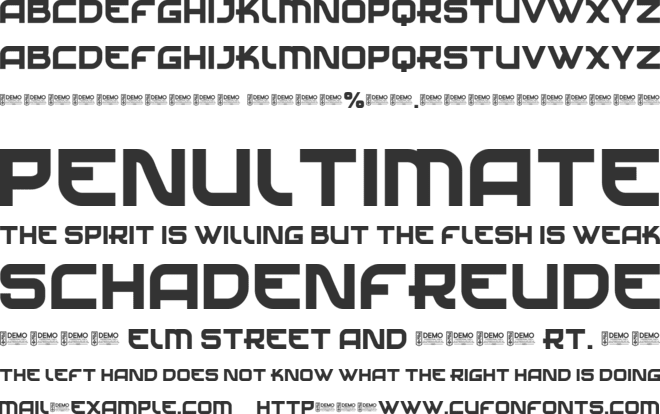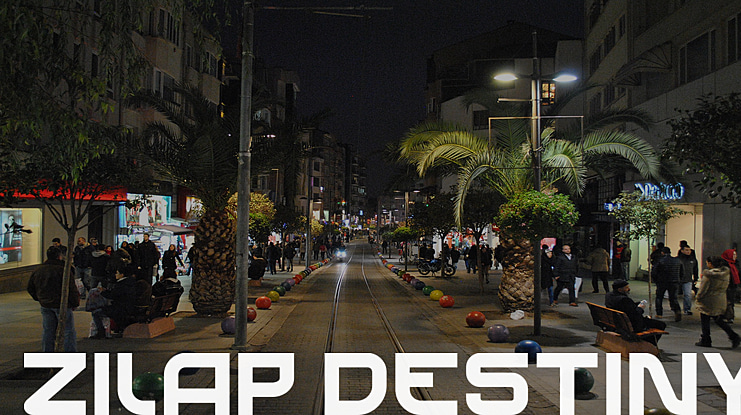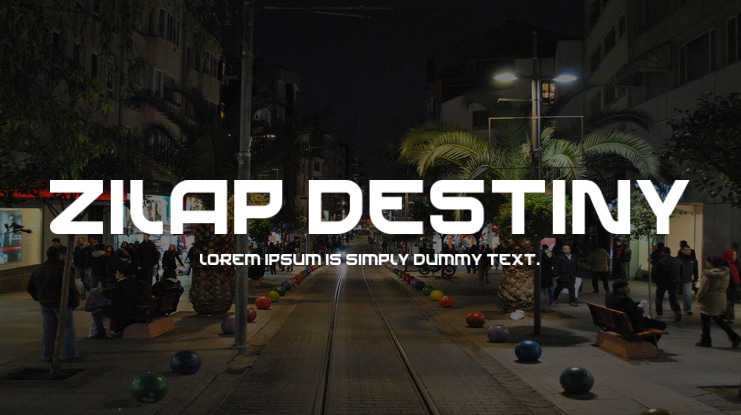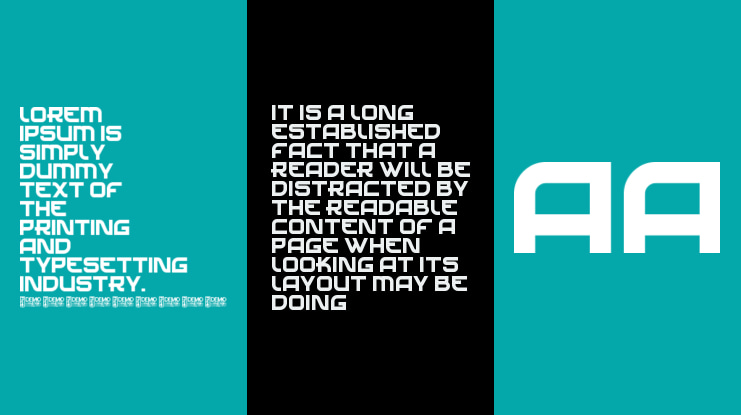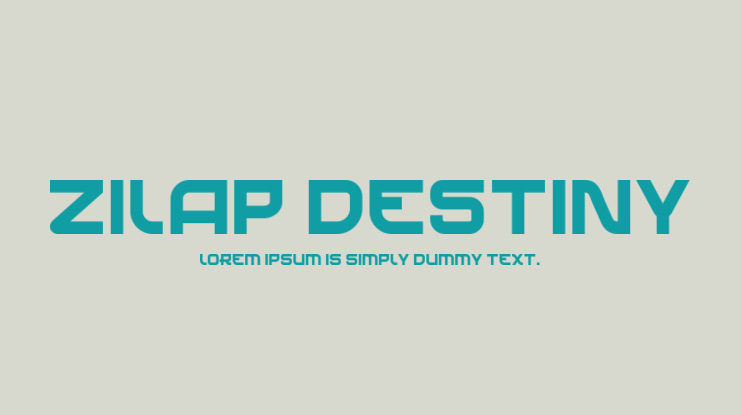
Zilap Destiny Font Family
Luis Jaramillo
• ZILAP DESTINY / Personal Use / It's a typographic project full of personality, perfect for Futuristic and modern uses.
It is a versatile typeface that adapts to the needs. Graphics of each job.
Inspired and designed by Zilap Studio
Assembly and foundry by LJ Design Studios